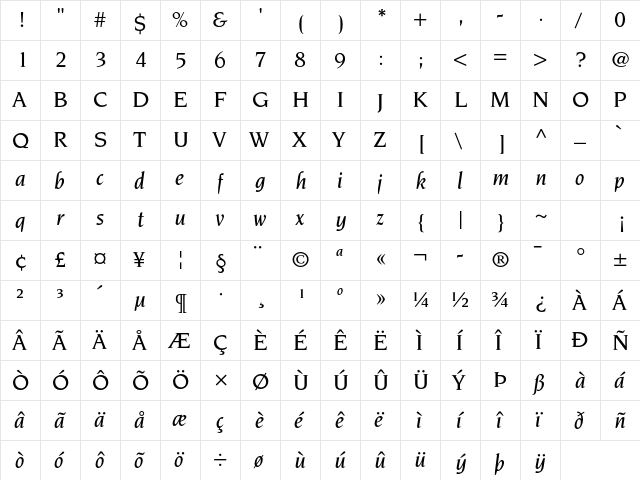
ITC Novarese Std Medium Italic
| Designer | Aldo Novarese |
Design Context for ITC Novarese Std Typeface
ITC Novarese Std takes a measured approach to typography — its balanced proportions and neutral character make it a reliable workhorse for both digital and print work. Its italic angle brings a sense of urgency and motion to the letterforms.
Pro Tip: Use ITC Novarese Std for emphasis, pull quotes, and subheadings where its slanted energy can add rhythm to the layout.